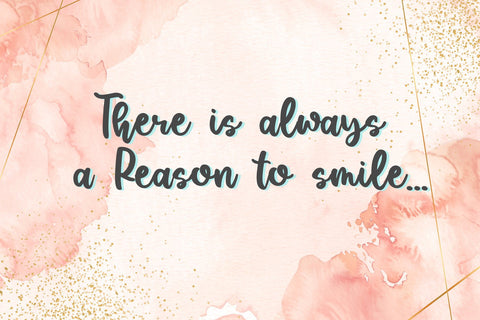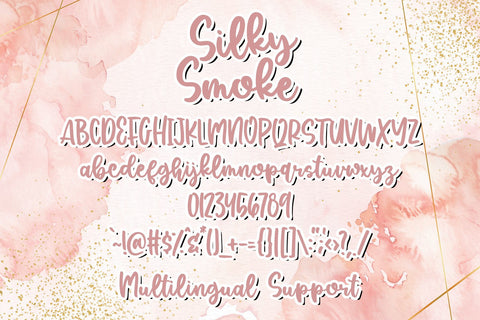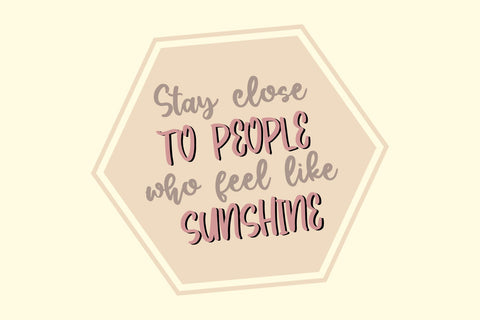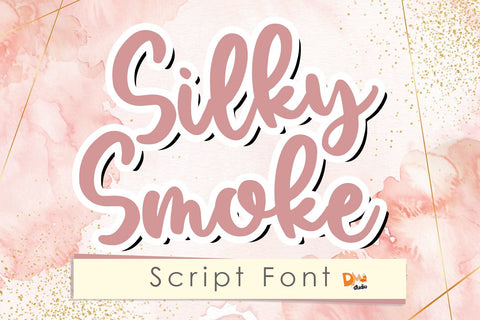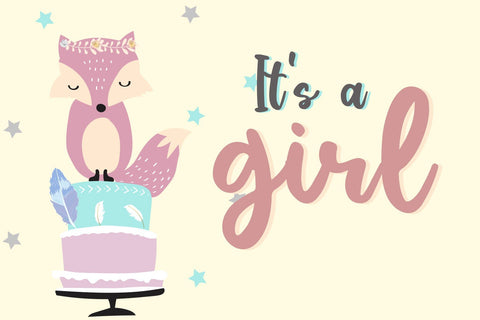
Silky Smoke - Cute Script Font
Introducing Silky Smoke Script Font,
It's a modern bouncy handwritten font. Great choice if you're looking for fonts for your DIY projects or even for social media posts.
- uppercase
- lowercase
- numeric
- symbols